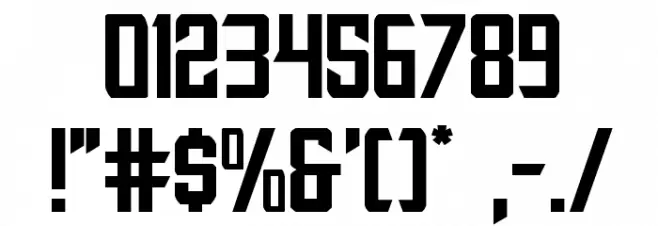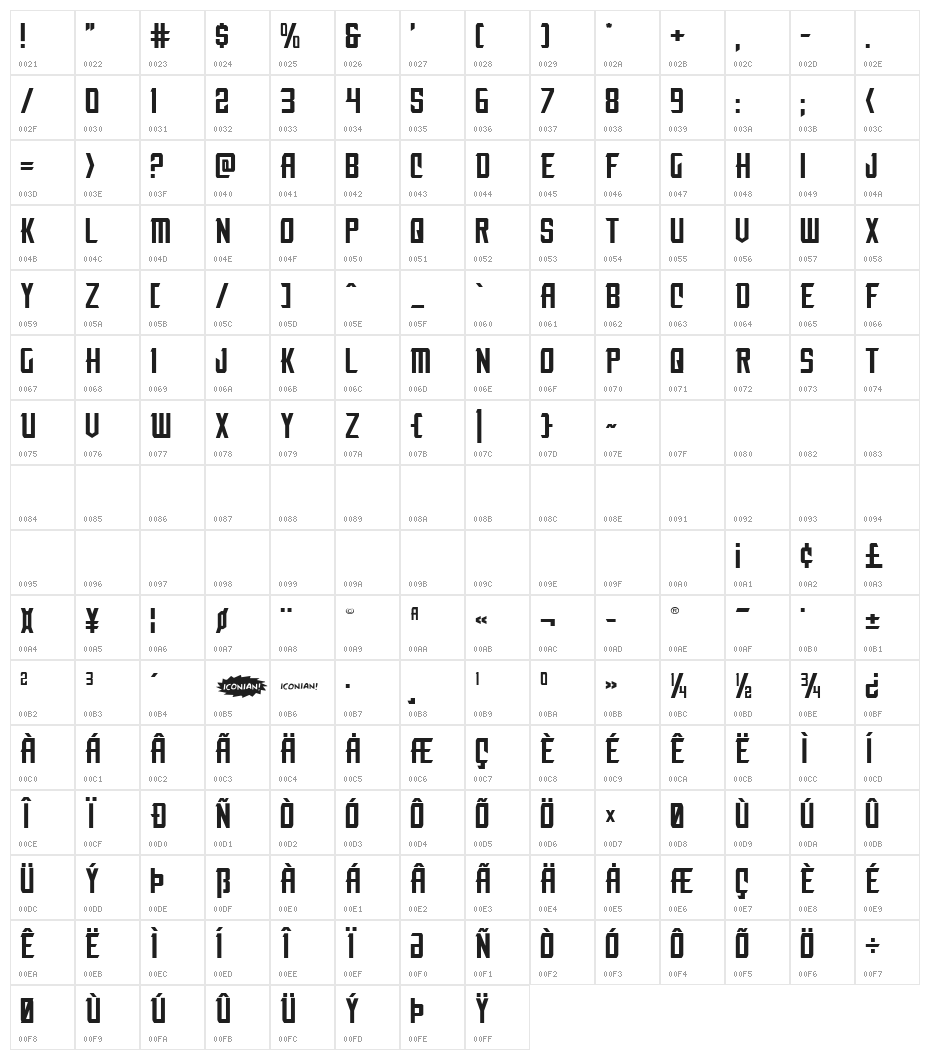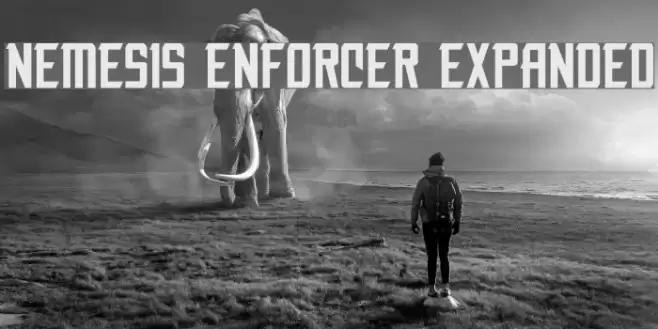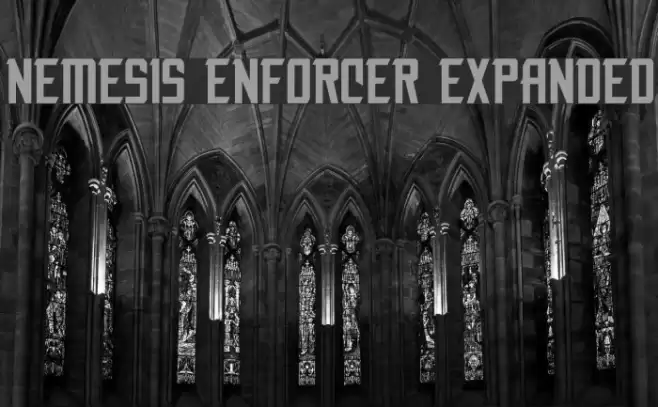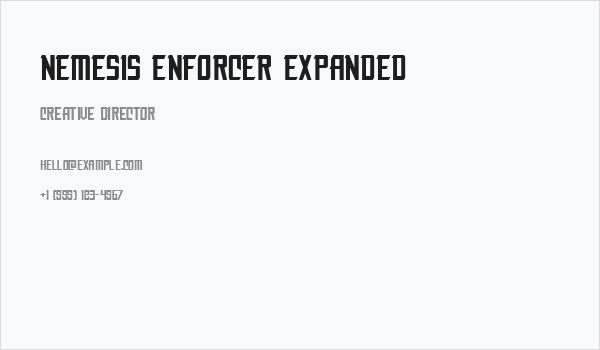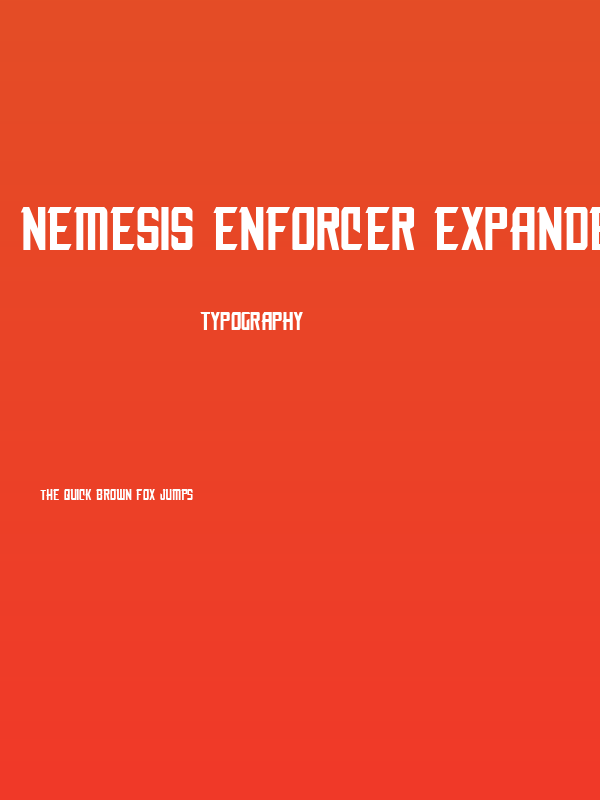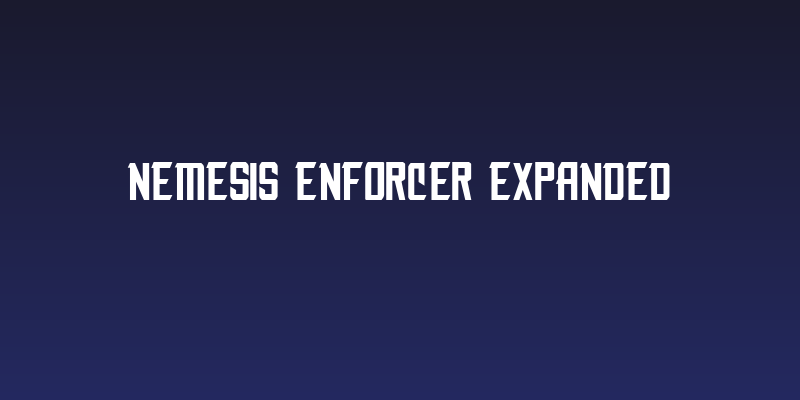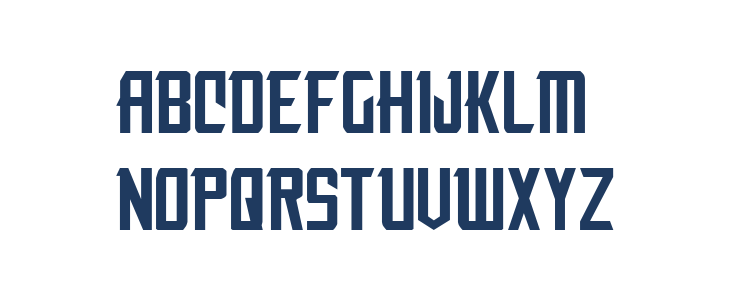
Nemesis Enforcer Expanded Font
Nemesis Enforcer Expanded Description
This font features a bold and expanded style with a strong geometric structure. The characters are designed with sharp angles and a uniform stroke width, giving it a futuristic and industrial appearance. The uppercase letters are particularly striking, with a consistent height and width that enhances readability. The numbers and special characters maintain the same boldness and angular design, ensuring a cohesive look across all text elements. This font's expanded width makes it ideal for creating impactful headlines and titles.
| Proposed Projects | Ideal for use in sci-fi themed designs, posters, video game graphics, and branding for tech companies. |